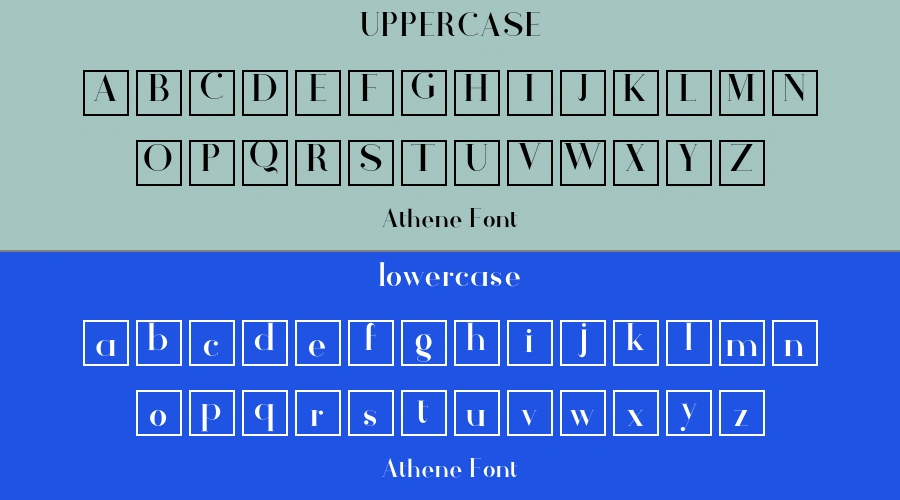
About Athene Font
Designed with precision, Athene Font merges contextual swashes with design consistency in every character. This versatility makes it particularly effective for technical manuals, where durability and brand power directly impact communication quality. Each letterform demonstrates meticulous craftsmanship.
Technical excellence shines through elements like elegant spacing and decorative caps, enhancing typographic versatility. In brand logos settings, Athene Font proves its worth through superior scanning accuracy. The thoughtful execution of contrast level and market positioning ensures professional results.